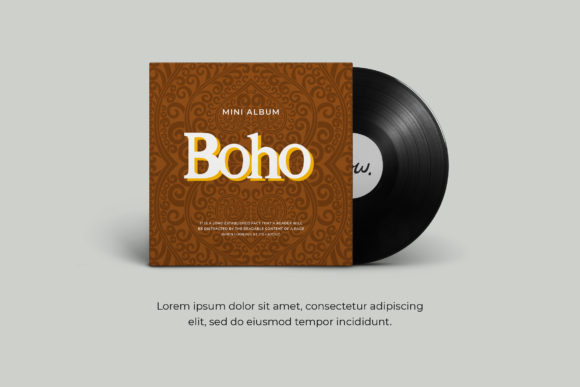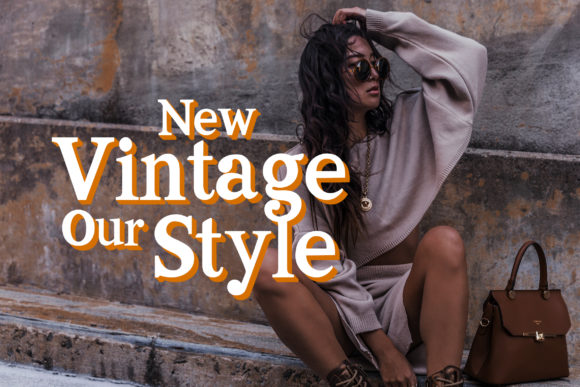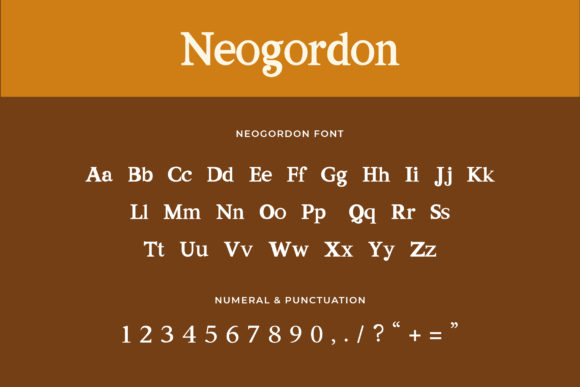
Introduction to Neogordon Font
Neogordon is a retro and authentic serif font.
It can be used for various purposes such as logos, wedding invitations, headings, t-shirts, letterhead, signage, labels, news, posters, badges and so much more .
Why Choose Neogordon Font?
Neogordon Font offers exceptional quality and versatility, making it a valuable addition to your design toolkit. Whether you’re creating for personal projects or commercial use, Neogordon Font delivers professional results.